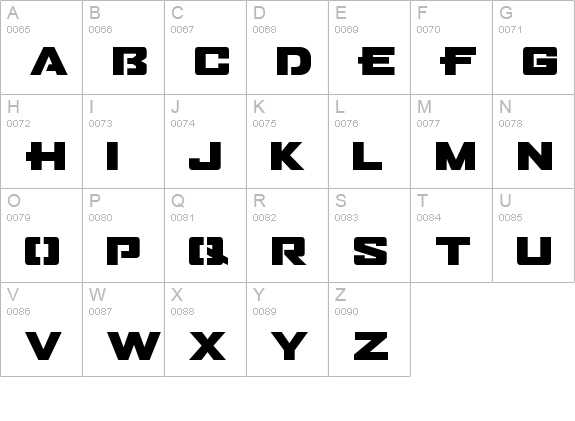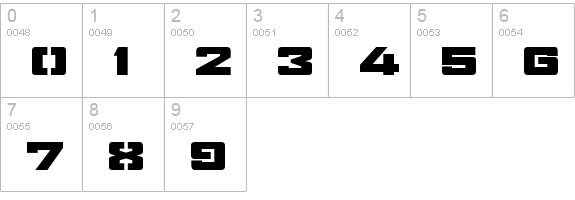
Sports Soldier Field Custom Font Details
Introducing the Sports Soldier Field Custom font, a captivating typeface that embodies the spirit of athleticism and competition. This font is the perfect choice for any sports-related project, from team logos and jerseys to event posters and merchandise. With its bold and strong letterforms, the Sports Soldier Field Custom font commands attention and exudes power. Each character is meticulously crafted to capture the dynamic energy and passion of sports, making it the ideal choice for designers and athletes alike. One of the best features of the Sports Soldier Field Custom font is that it is freely available to download at FontsMarket.com. This means that you can easily access this exceptional font without any cost, making it an invaluable resource for sports enthusiasts, graphic designers, and anyone in need of a striking and impactful typeface. Whether you're designing a sports magazine cover, creating a promotional flyer for a sporting event, or even just adding a touch of athleticism to your personal projects, the Sports Soldier Field Custom font is the ultimate tool in your creative arsenal. Its versatility and unique style make it a standout choice for any sports-themed design. So why wait? Don't miss out on the opportunity to enhance your designs with the Sports Soldier Field Custom font. Head over to FontsMarket.com today and download this extraordinary font for free. Unleash your creativity and bring your sports-related designs to life with this remarkable typeface.